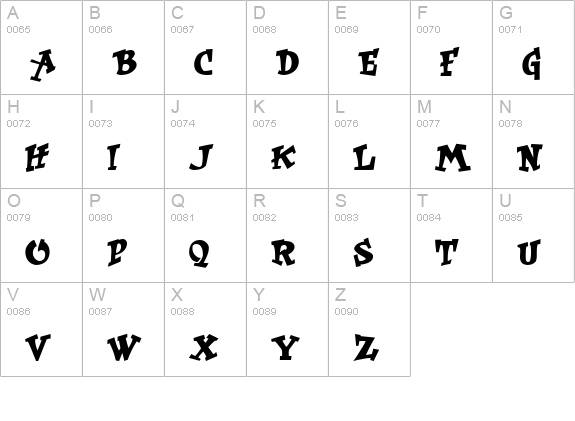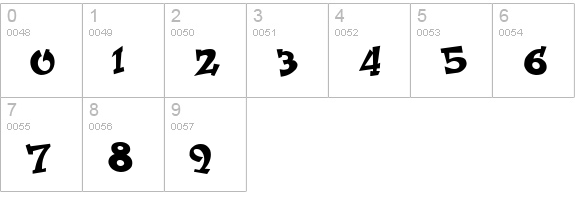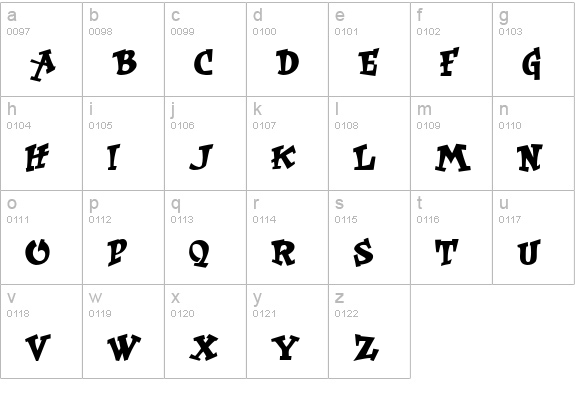
RockArt Font Details
Introducing RockArt font, a versatile typeface that brings a touch of edgy sophistication to your design projects. This unique font features bold, rugged letterforms that exude strength and creativity, making it perfect for a wide range of applications, from logos to posters to headlines. With its modern yet timeless aesthetic, RockArt font is sure to make a statement and capture the attention of your audience. Whether you're working on a branding project, a packaging design, or a website, this font will add a dynamic and energetic vibe to your work. The best part? RockArt font is available for free download at FontsMarket.com, giving you easy access to this powerful tool for your creative endeavors. Don't miss out on the opportunity to elevate your designs with the bold and distinctive RockArt font. Download it today and let your creativity rock!